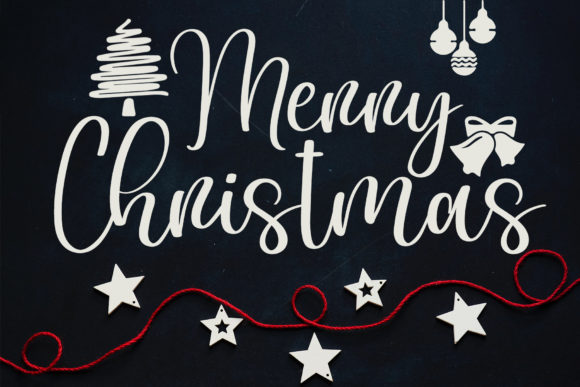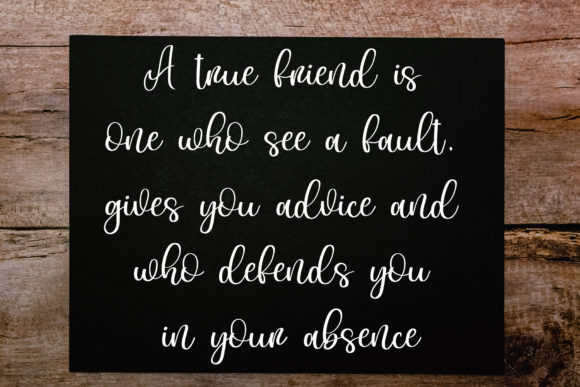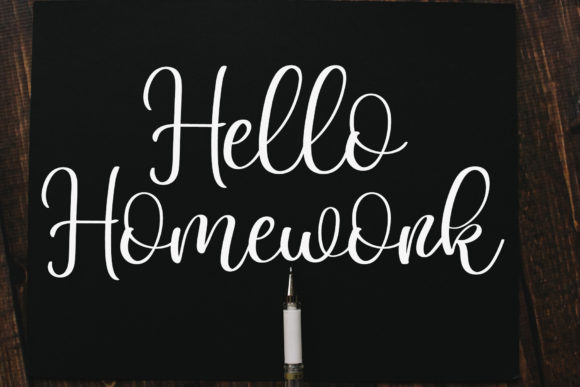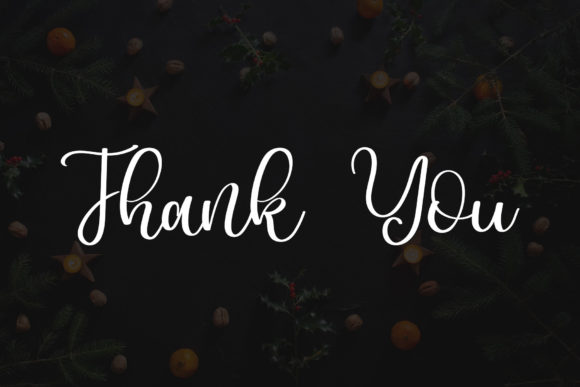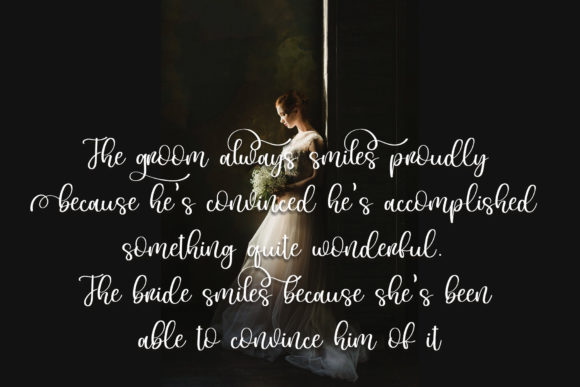
Belgium Stars Font
About Belgium Stars Font
Belgium Stars is a romantic and sweet calligraphy typeface with characters that dance along the baseline. It will add a luxury spark to any design project that you wish to create!